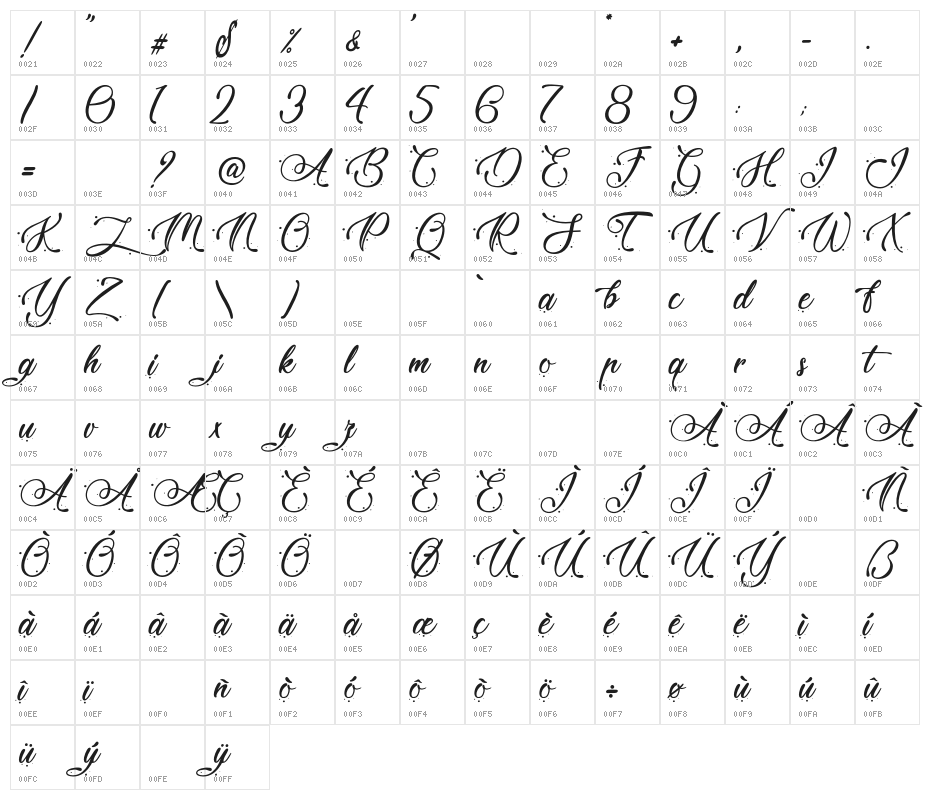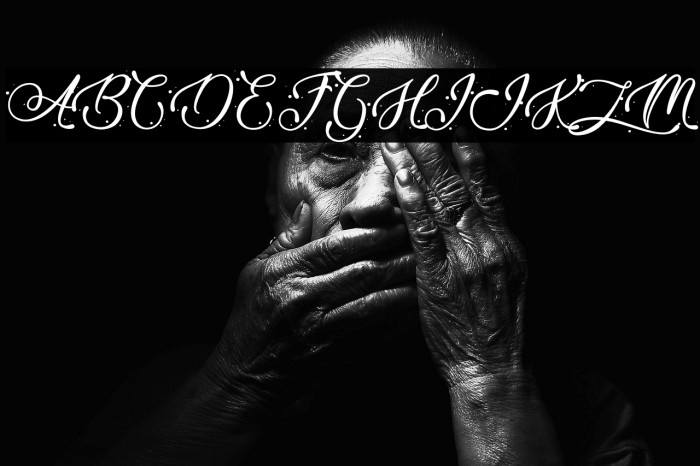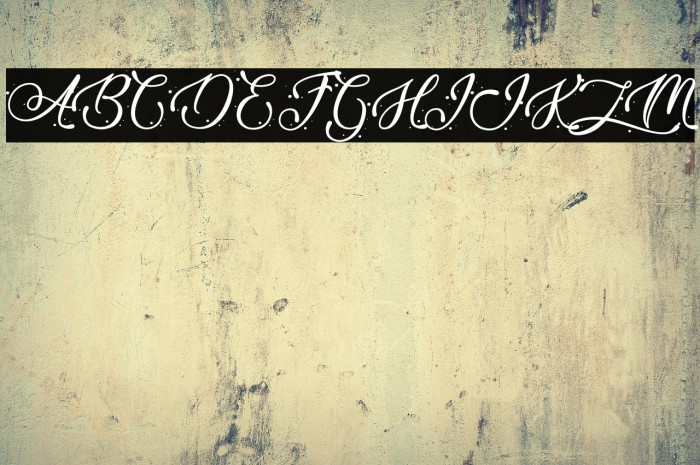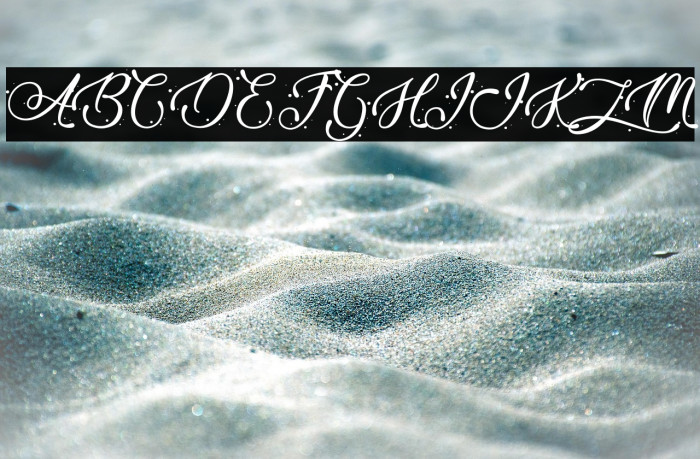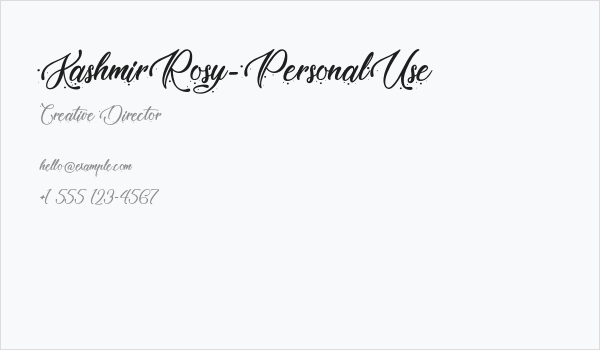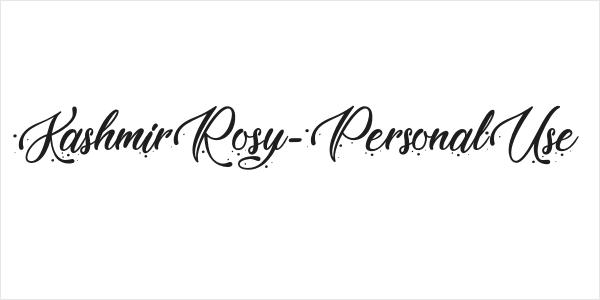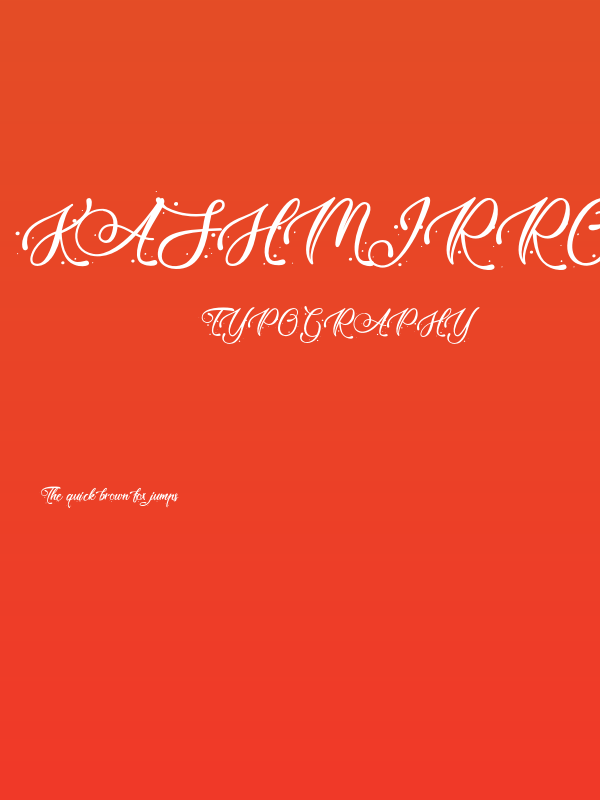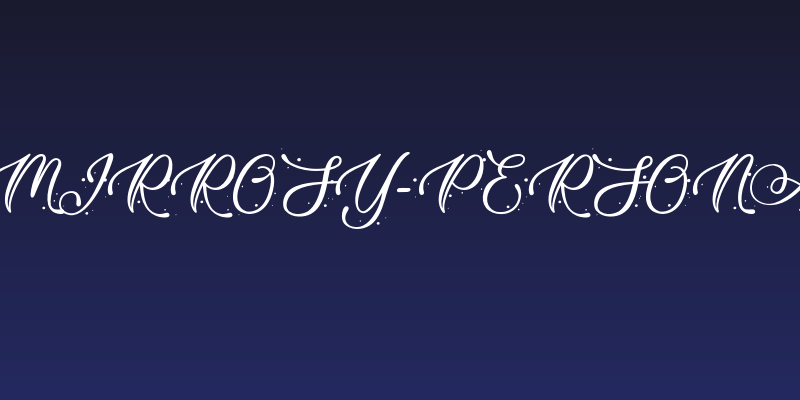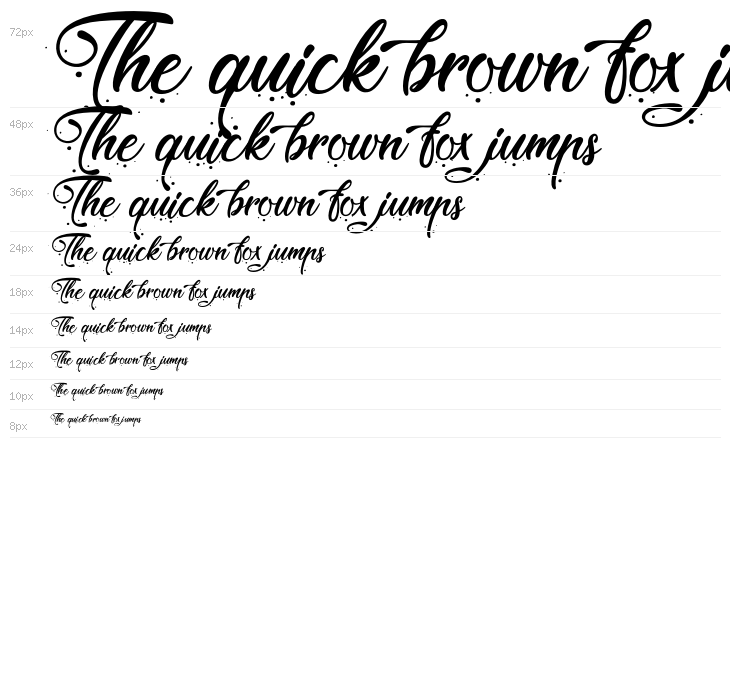
KashmirRosy-PersonalUse Font
KashmirRosy-PersonalUse Description
This elegant script font features a flowing, cursive style with intricate swashes and flourishes. The uppercase letters are adorned with delicate dots and loops, adding a touch of sophistication and charm. The lowercase letters maintain a smooth, connected flow, enhancing readability while preserving the decorative appeal. The numerals are consistent with the script style, featuring gentle curves and a slightly playful character. Special characters are creatively integrated, maintaining the overall aesthetic. This font exudes a sense of elegance and grace, making it suitable for projects that require a refined and artistic touch.